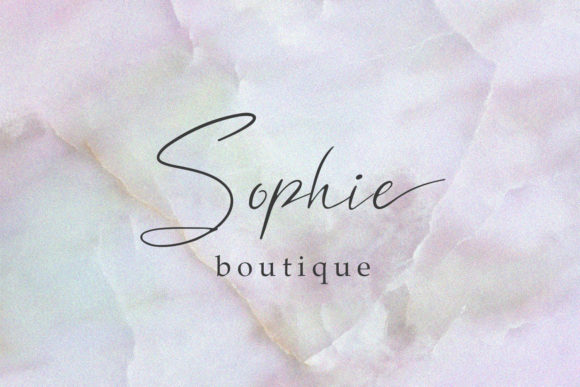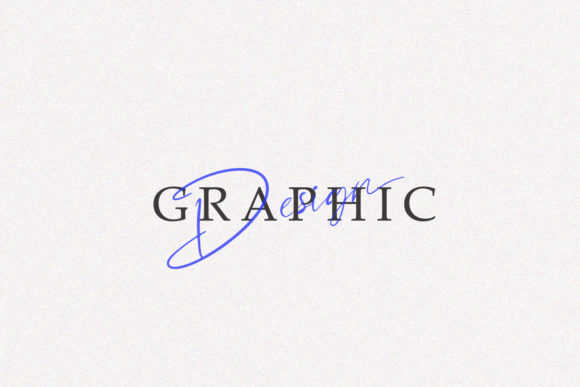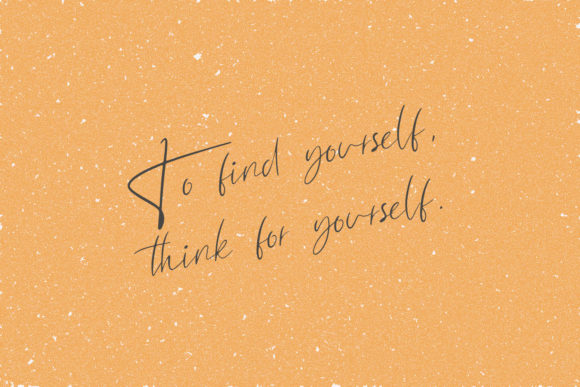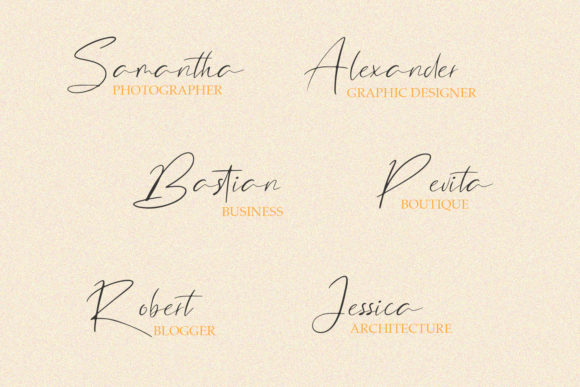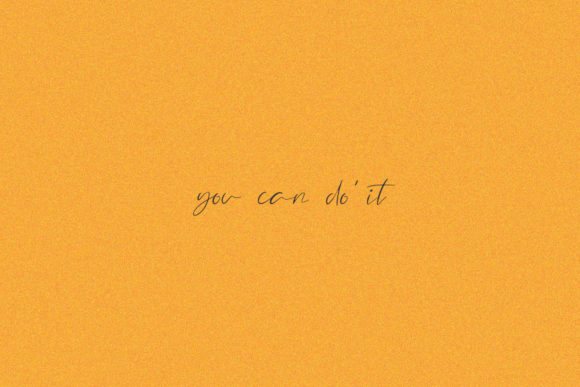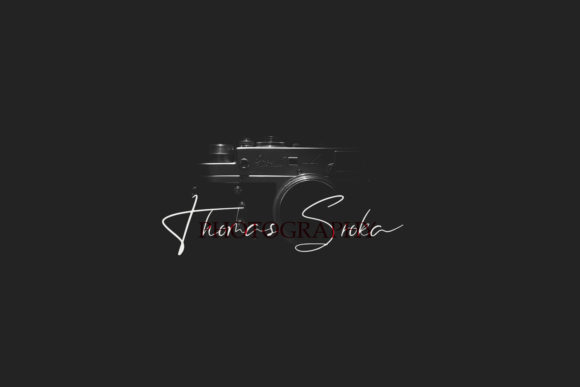
Introduction to North Little Font
North Little is an elegant script font.
Carefully hand-crafted, it will add an authentic touch to any design project .